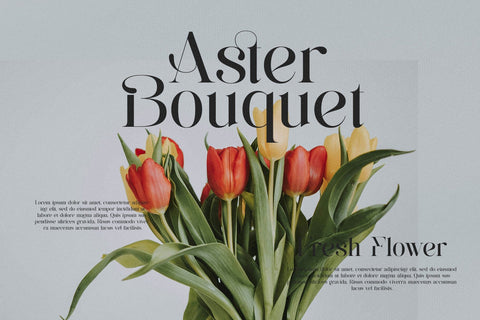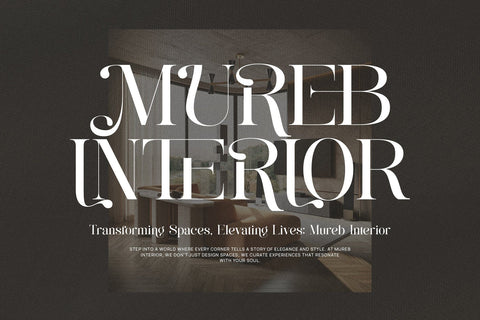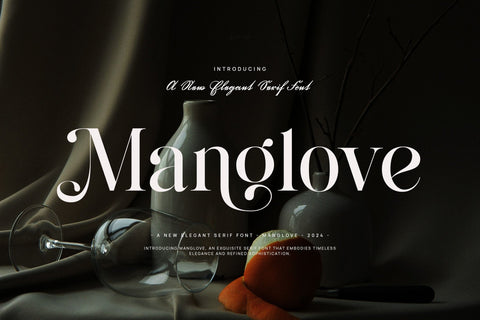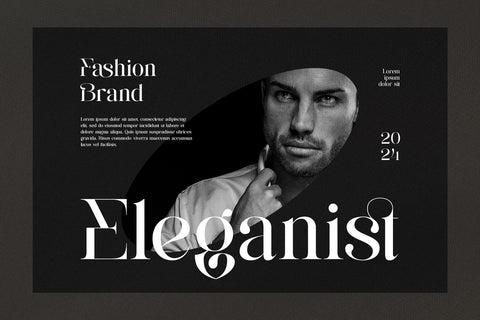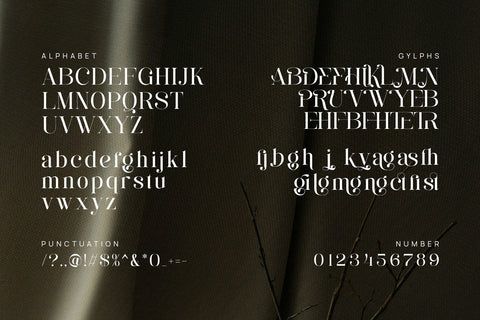
Manglove - Elegant Serif Font
Introducing our new Manglove, modern serif font with elegant style this is perfect for branding, logos, invitation, magazines, product packaging and more.